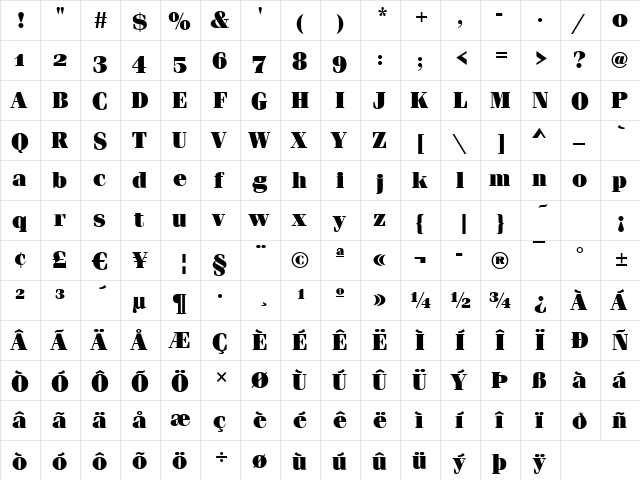
Ferrara-Osf-Ultra Regular
Design Context for Ferrara-Osf-Ultra Typeface
Ferrara-Osf-Ultra takes a measured approach to typography — its balanced proportions and neutral character make it a reliable workhorse for both digital and print work.